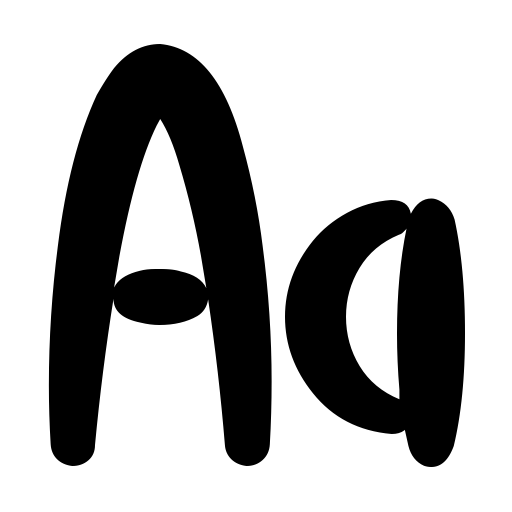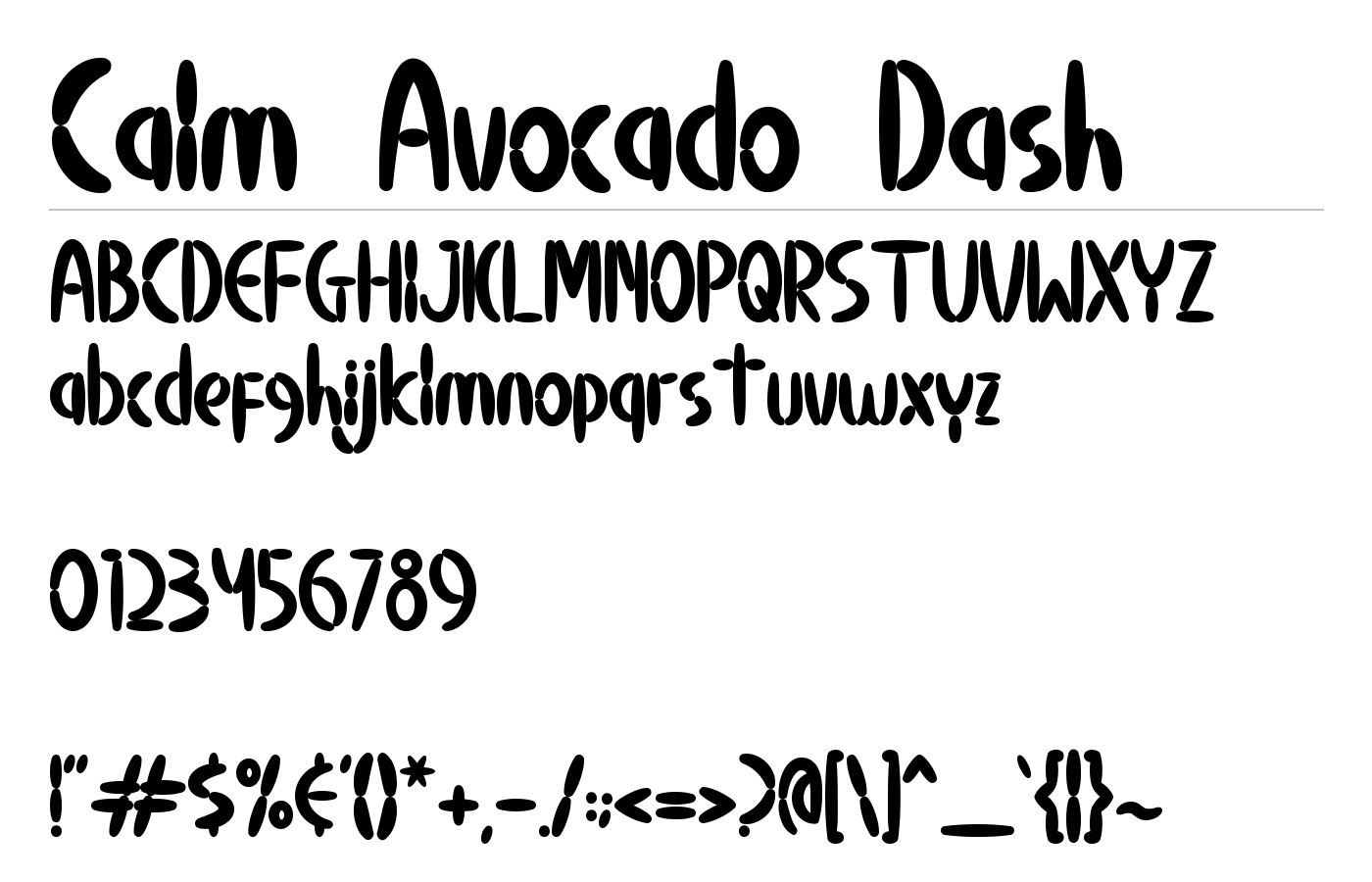
Calm Avocado Dash is a playful, hand-drawn sans serif font featuring rounded, irregular letterforms with a casual and friendly vibe. Its moderate weight and tall x-height make it legible while retaining a quirky personality, perfect for creative projects seeking a warm and informal touch. This font works well in logos, children’s books, packaging, and headlines where a fun, approachable style is desired.
Calm Avocado Dash Font
About Calm Avocado Dash Font
| Font family | Calm Avocado Dash Font |
| Designer | Hadjar Creative |